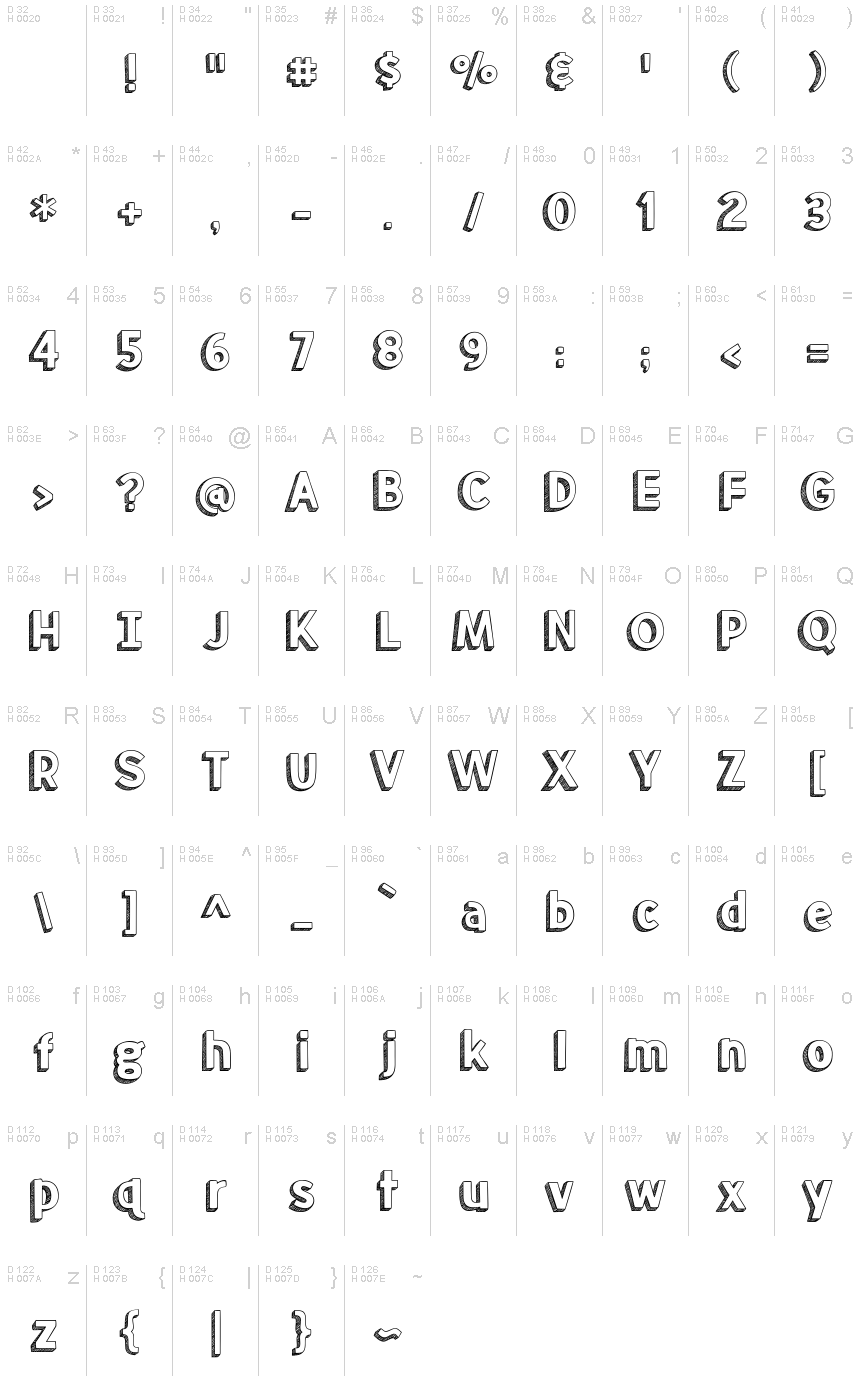
meatloaf
Meatloaf by Brittney Murphy is a bold, 3D cartoon-inspired display font that captivates with its playful yet striking visual presence. The chunky, exaggerated letterforms and dynamic stroke variations create a vibrant, attention-grabbing aesthetic, making it a standout choice for headlines, logos, and other display-oriented design projects. Meatloaf's distinctive character lends itself well to branding, editorial layouts, and multimedia applications, adding an energetic, eye-catching flair to any design.
This font's versatility and playful character make it an excellent option for creating engaging designs in various industries, from entertainment and advertising to children's media and modern web interfaces. Meatloaf's bold, expressive personality ensures it will leave a lasting impression on audiences, making it a valuable asset for designers seeking to add a touch of personality and visual interest to their work.